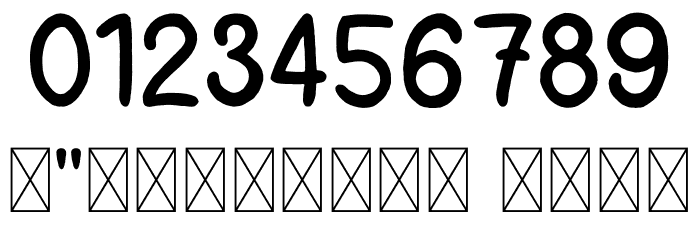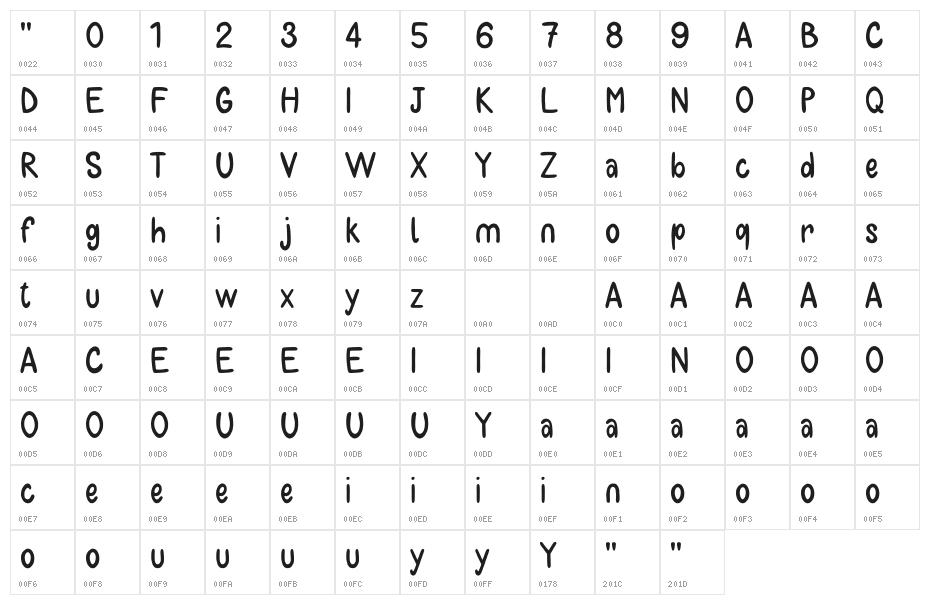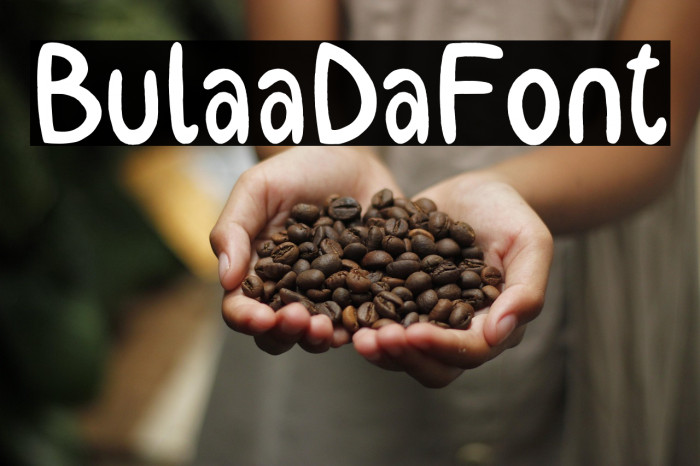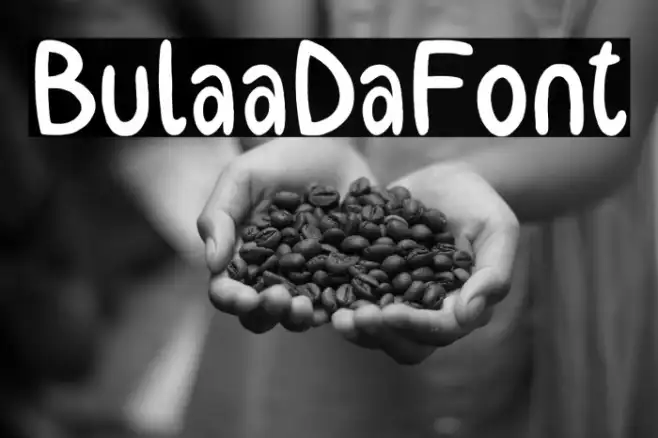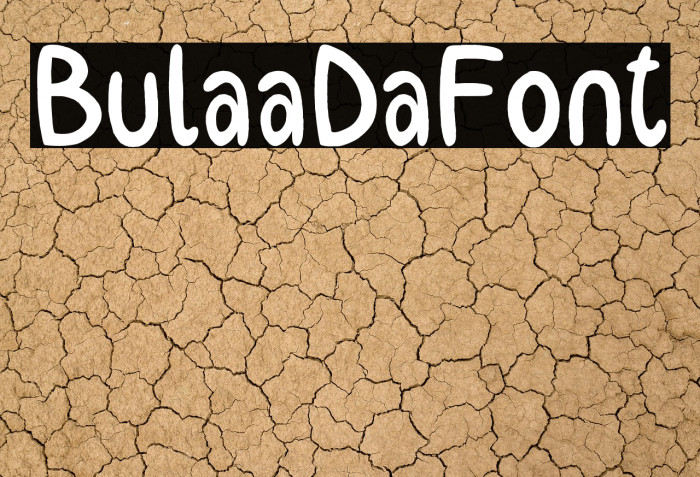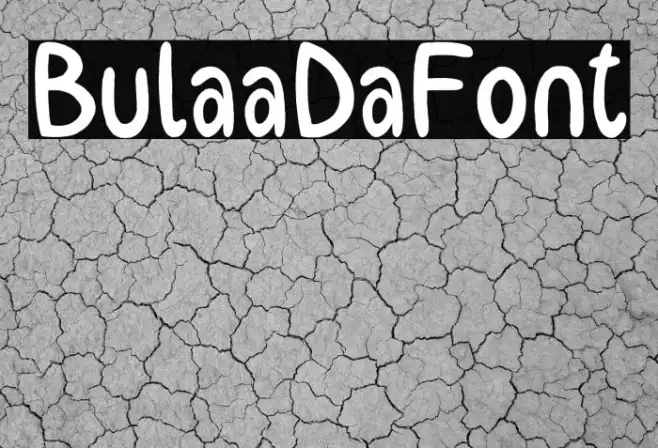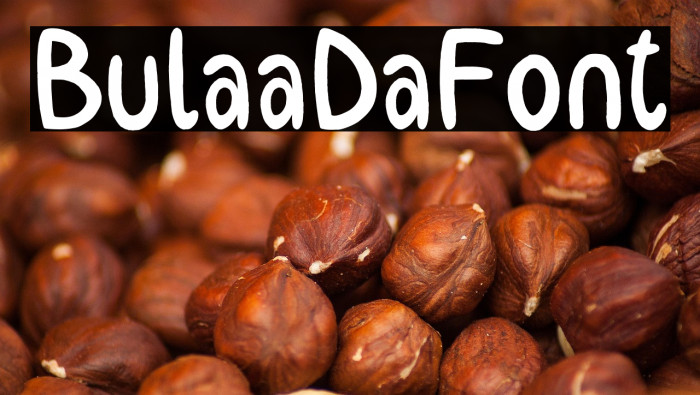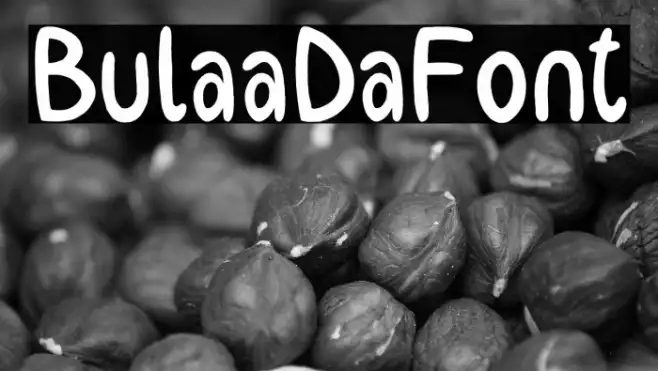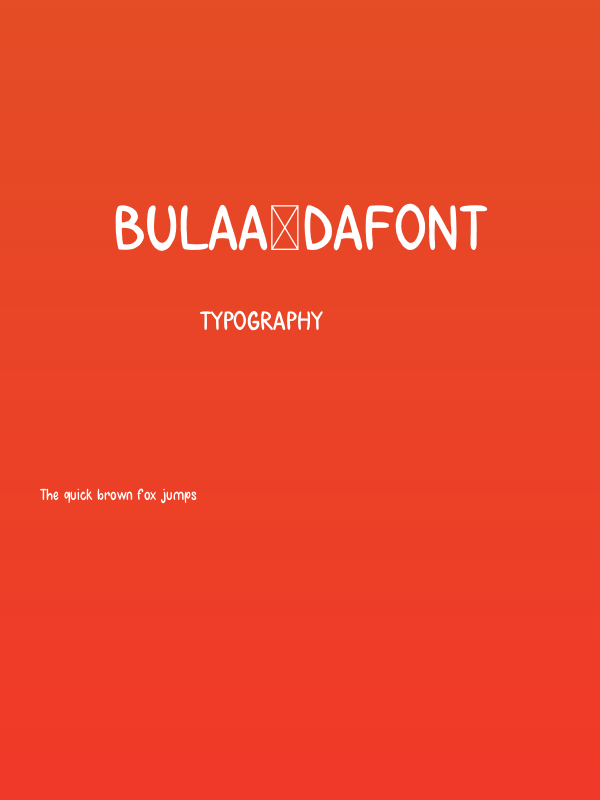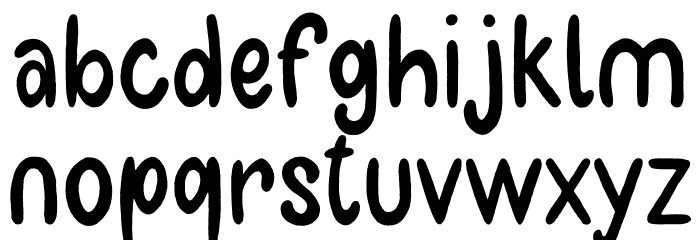
Bulaa-DaFont Font
Bulaa-DaFont Description
This playful and rounded font features a hand-drawn aesthetic with smooth curves and a casual feel. The uppercase and lowercase letters are consistent in style, maintaining a friendly and approachable appearance. The numbers are equally rounded, contributing to the overall cohesive look. The font's informal style makes it suitable for projects that require a personal touch. Its simplicity and readability ensure it stands out without overwhelming the viewer. The lack of sharp edges and the uniform stroke width give it a soft and inviting character, ideal for creative and lighthearted designs.
| Proposed Projects | Ideal for children's books, greeting cards, playful branding, and casual invitations. |